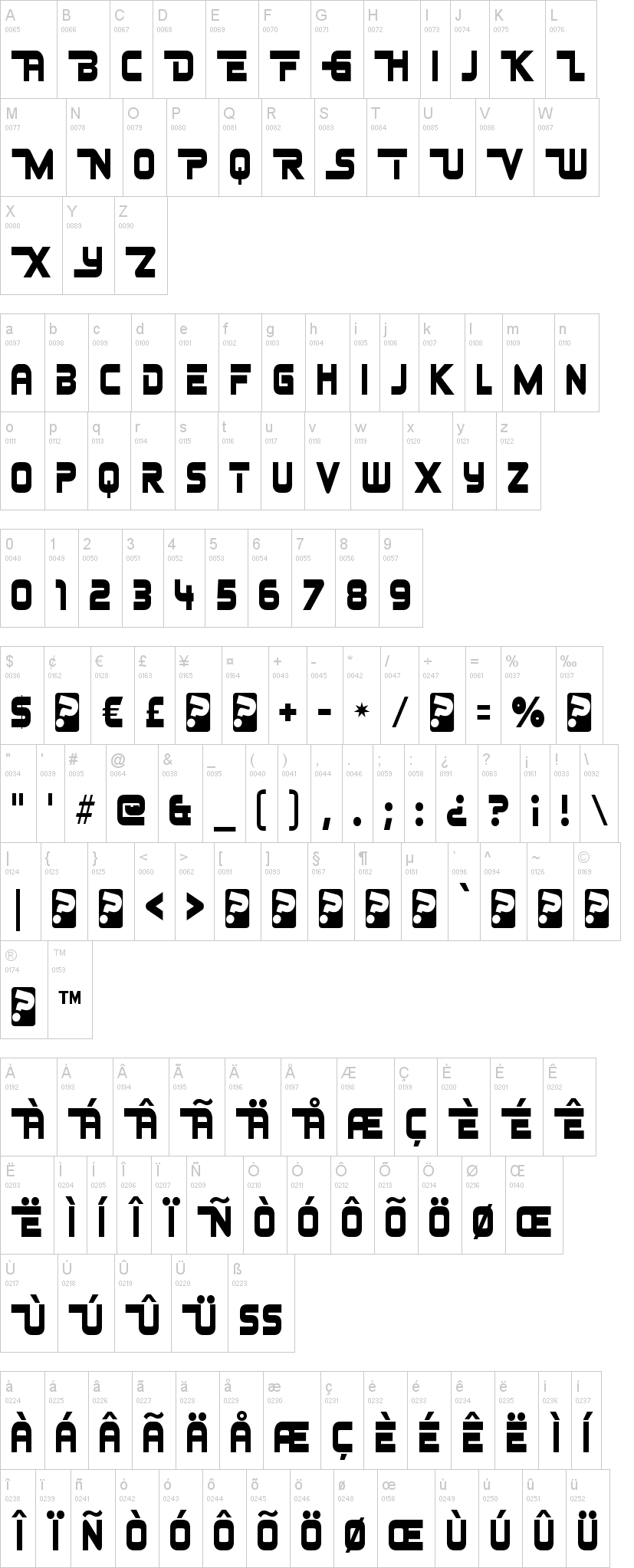
Шрифт Johnny Fever
Johnny Fever is a 1980s-style swash cap, retro font inspired by Amiga 4K demos. Don't forget to read the files inside the zip for details. Updated in 2012.